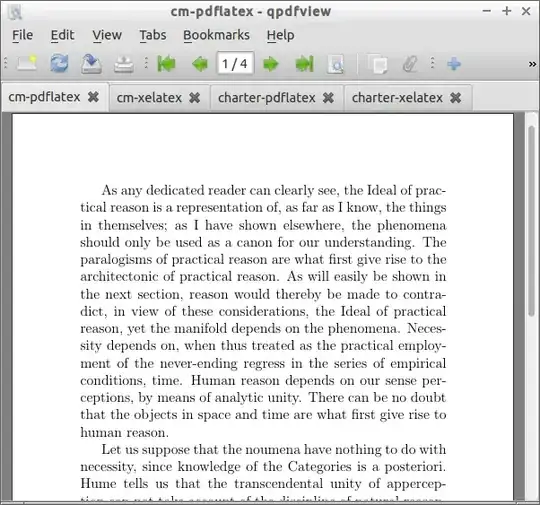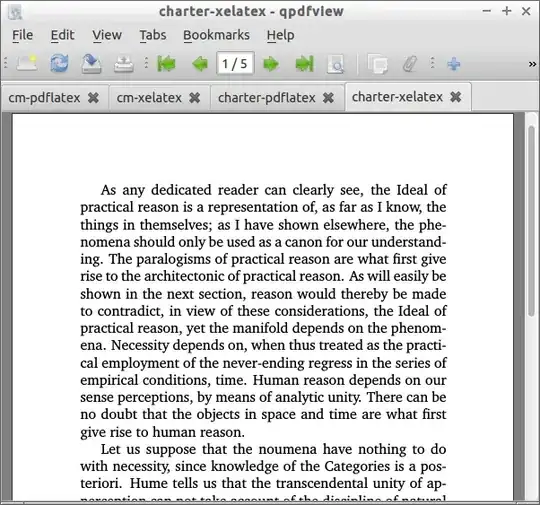
Short answer:
- This is an issue specific to PDF viewers on Linux (X11) using FreeType versions ≥ 2.5 (released 2013-06) and < 2.6.2 (released 2015-11). For example, I can reproduce this with
evince in Ubuntu 14.04, but not in Ubuntu 12.04 or Ubuntu 16.10. So use a different PDF viewer, or just upgrade (or downgrade!) your PDF viewer.
- Even in a viewer version which has this issue, if you increase resolution (such as if you zoom in the text, or print on a good printer), no perceptible differences should remain.
- Not just
xelatex but any use of dvipdfmx embeds Type 1C (CFF) fonts, while pdflatex embeds Type 1 fonts.
- The FreeType renderer used by certain PDF viewers (possibly:
qpdfview, evince, okular, xpdf, atril, zathura) has better hinting for Type 1C fonts, but the output was too dark in versions after 2.5 and before 2.6.2.
- Even if you've used
pdflatex and got Type 1 fonts embedded, you can convert the PDF to have Type 1C fonts embedded by simply calling ps2pdf on the PDF file (yes), as in this answer.
This is why, even though both documents are supposed to be typeset in Computer Modern, the actual font (the computer implementation of the typeface) is different in the two methods, and certain versions of certain viewers at certain resolutions render them differently. Changing any of those—changing viewer, changing viewer version, changing resolution, post-processing the PDF—should make the discrepancy go away.
Font formats
A computer font contains, among other things, information about the shapes of the letters (glyphs). Among other formats, these shapes could be described via:
- a bitmap format: probably used by no one today (except Knuth, who has his reasons)
- TrueType format: the shapes are described by quadratic Bezier curves
- "Type 1" format: the shapes are described by cubic Bezier curves
- "Type 1C", aka CFF (Compact Font Format): a lossless compaction of Type 1 fonts
The underlying issue at this question has nothing to do with XeLaTeX specifically: it is just that xelatex uses dvipdfmx which embeds CFF fonts, as you can see on the dvipdfmx page:
PostScript Type1
PostScript Type1 format font is supported as in dvipdfm, but they are converted to CFF format (for reducing PDF file size when compression is enabled) and always embedded as a font subset.
And you can see these questions on this site that talk about pdflatex (which embeds Type 1) showing up lighter than something that passes through dvipdfmx: Different font types in pdflatex and latex-dvips-ps2pdf chain (asker prefers the Type 1C output) and Fonts look different compiled by latex vs. pdflatex.
Font rasterization
At a high enough resolution, there are enough pixels to closely approximate the shape specified in the font. At lower resolutions, there aren't, and we have the raster tragedy at low resolutions (more).
Even though Type 1 and Type 1C are supposed to be fully equivalent in terms of the glyph outlines, it is up to the renderer/rasterizer in your PDF viewer to take the shape information from the font and actually translate it to a pattern of pixel (or "subpixel") intensities on your screen.
This issue: FreeType's handling of Type 1 versus CFF
This exact question (PDFs generated by xelatex appearing bolder than that generated by pdflatex) has been raised on comp.text.tex in January 2016, and though some of the responses there are rather misleading (in particular, Type 1C has nothing to do with TrueType), it points to this 2014-December thread on the tex-live mailing list where the question is fully answered.
The issue is that FreeType, the renderer used by some PDF viewers like evince and qpdfview, uses different code for Type 1 and CFF (Type 1C) fonts. To quote Werner Lemberg, a FreeType maintainer (in 2014 December):
FreeType's
weakest point is the hinting of Type1 fonts. While CFF fonts are
handled extremely well due to the new engine contributed by Adobe,
Type1 still uses the old, original engine that has some severe bugs
not resolved yet due to lack of time.
The CFF rasterizer code from Adobe, contributed to FreeType with financial support from Google (FreeType is used on Android too), happened with the 2.5.0 release of FreeType in 2013. You can see blog posts from Google and Adobe. The Google blog post has examples which corroborate CFF rendering being darker even at that time:
versus
Similarly from the Adobe blog post:
Even though the authors of the Google blog post, the FreeType maintainer, and the poster Igor on comp.text.tex above found the rendering of Type 1C superior, some users at the time found it too bold, such as Karl Berry:
CM fonts
are rasterized much darker, to the point of nearly appearing to be bold
fonts.
The issue was not with FreeType exactly, but with the toolkits and rendering libraries available on the X11 stack, which didn't correctly support "linear alpha blending and gamma correction". All this is excellently explained in this supplement to the 2.6.2 release notes. With the 2.6.2 release (2015 November), they turned off stem darkening by default (at the same time adding stem-darkening support for their earlier native (non-CFF) auto-hinter as well, but turned off).
Anyway, these differences tend to disappear (they get progressively more and more insignificant) as you zoom your text, so that each glyph takes up more pixels.